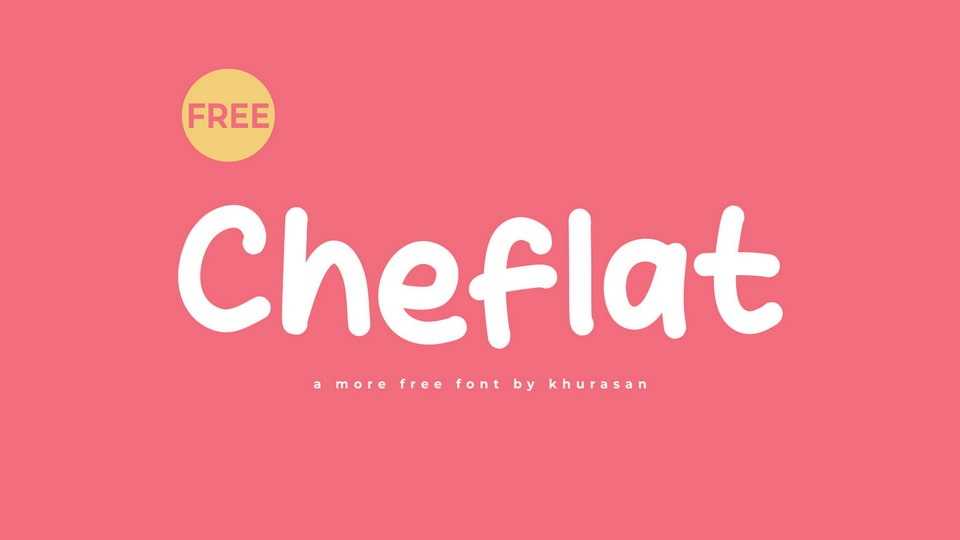
Download Cheflat font, a charming and organic handwritten typeface that brings a touch of whimsy to your projects. Crafted with simplicity and character, Cheflat font captures the essence of hand-drawn comics, adding a playful and approachable vibe to your designs.